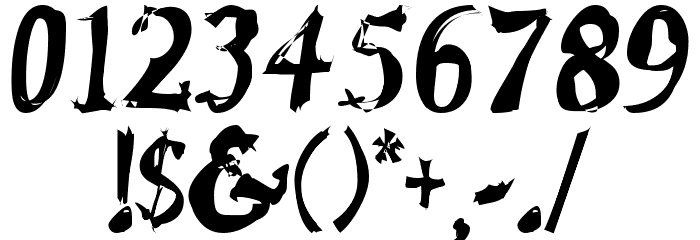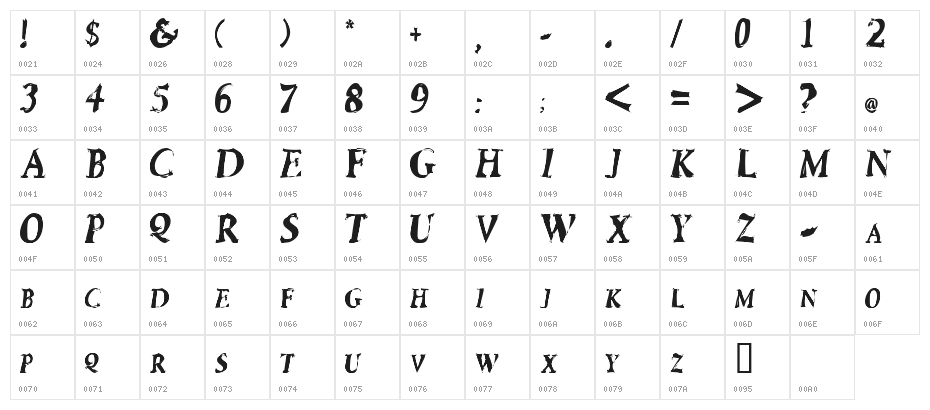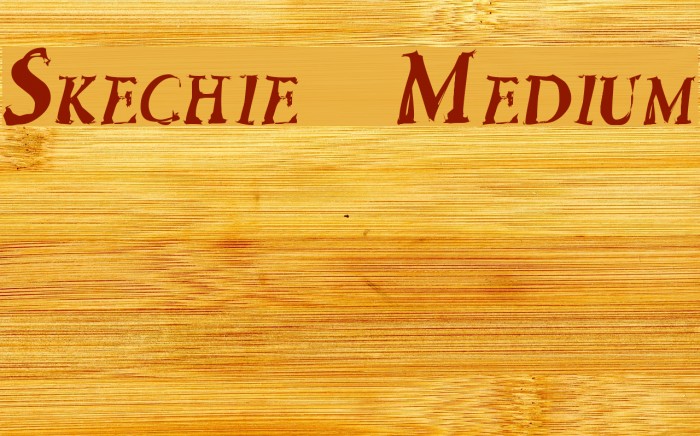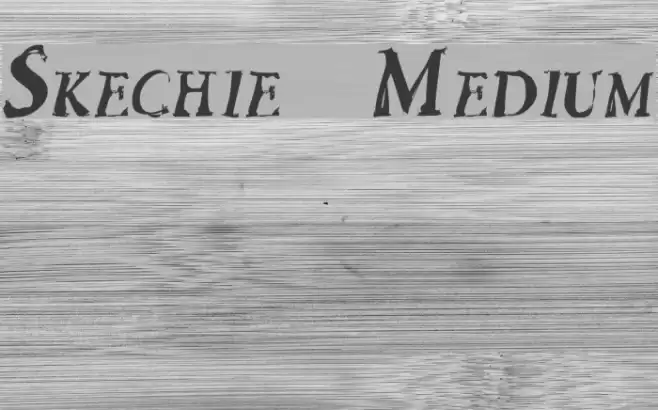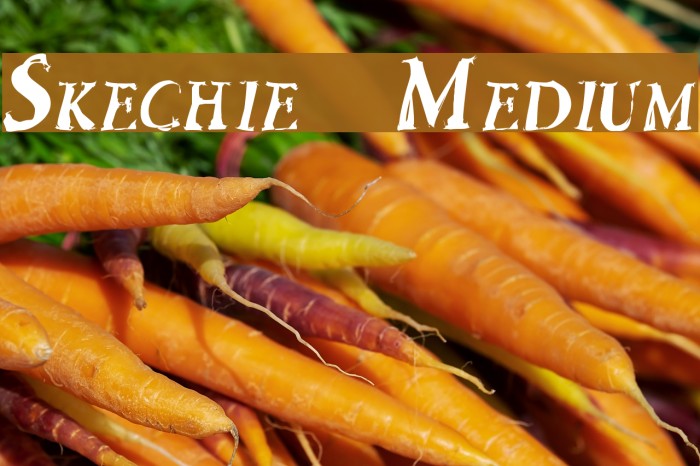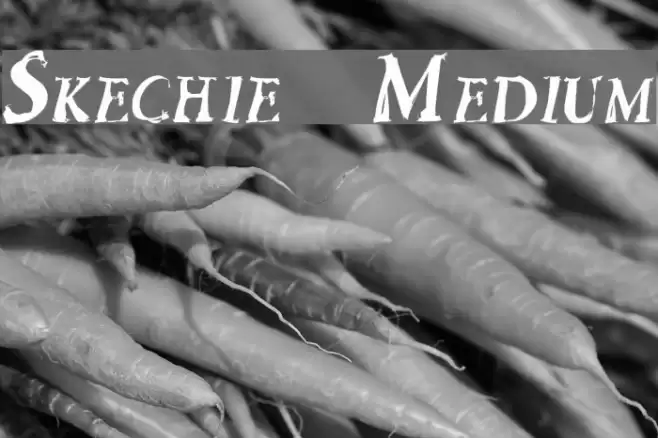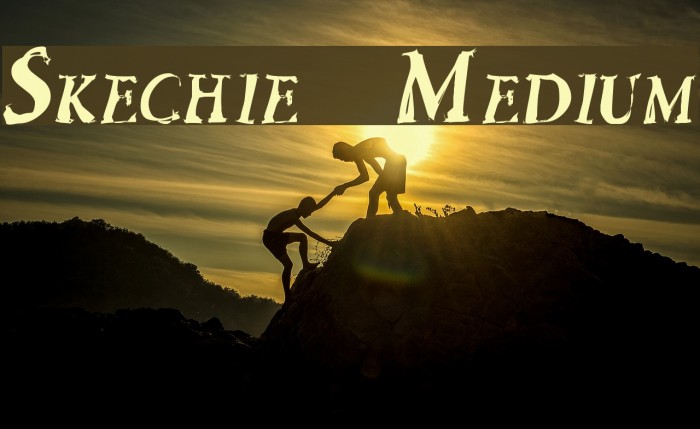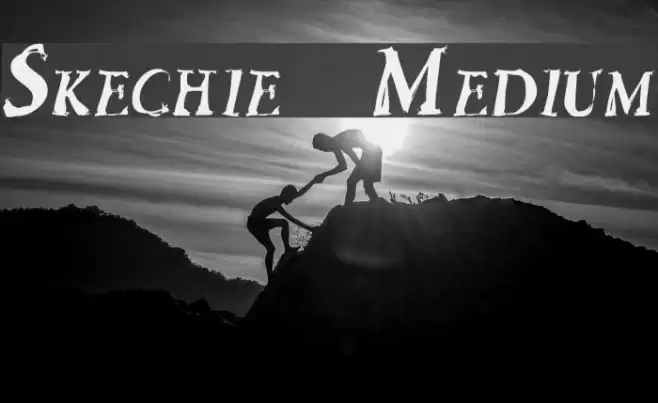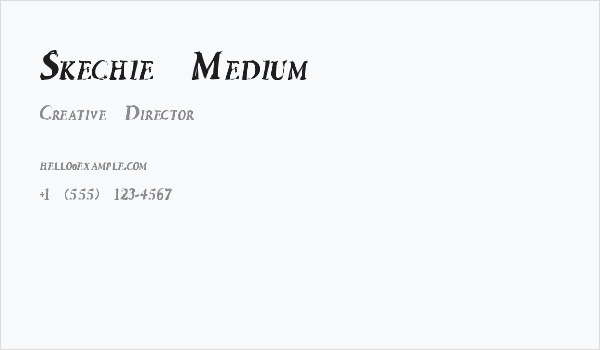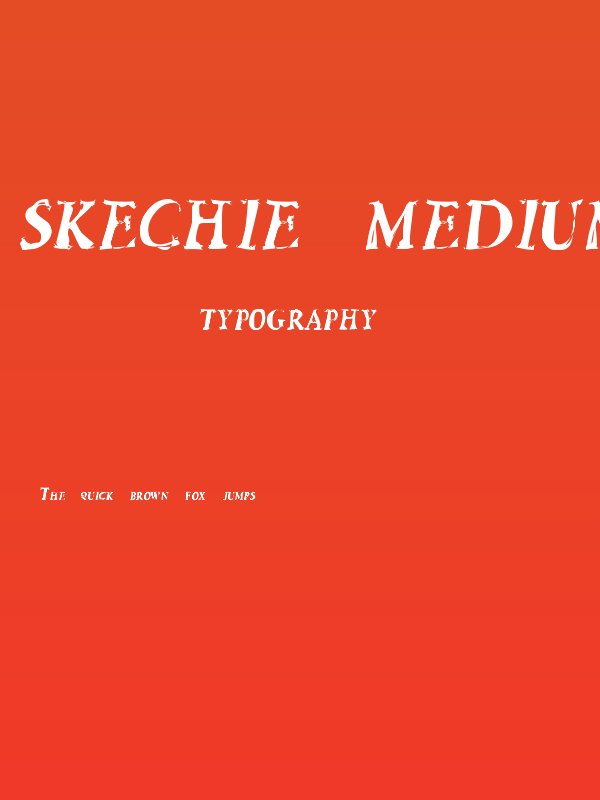
Skechie Medium Font
Skechie Medium Description
This font features a unique and edgy design with a distressed, grunge-like appearance. The characters are bold and dynamic, with irregular edges and a sense of movement that gives them a hand-drawn feel. The uppercase and lowercase letters maintain a consistent style, while the numbers and special characters complement the overall aesthetic. The font's artistic flair makes it stand out, ideal for projects that require a bold statement or a creative touch. Its distinctive style is perfect for capturing attention and conveying a sense of individuality.
| Proposed Projects | Ideal for album covers, posters, branding for edgy products, and creative digital art. |